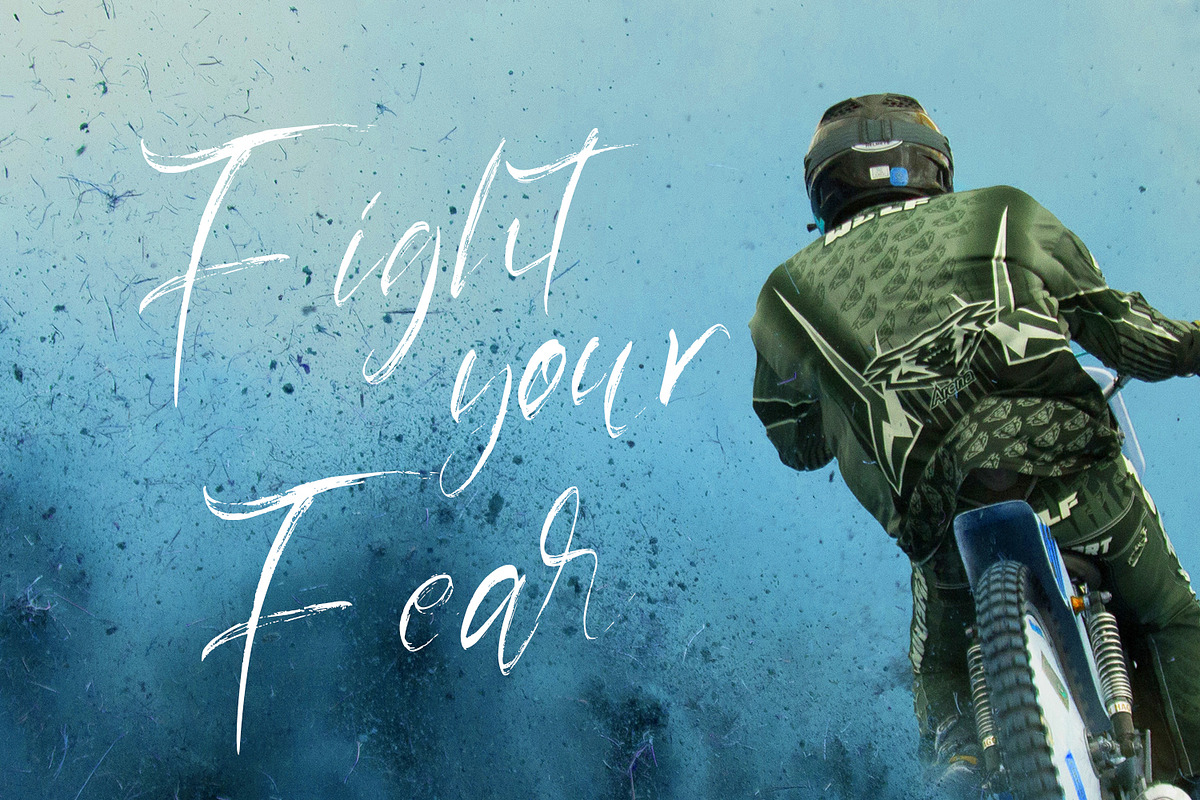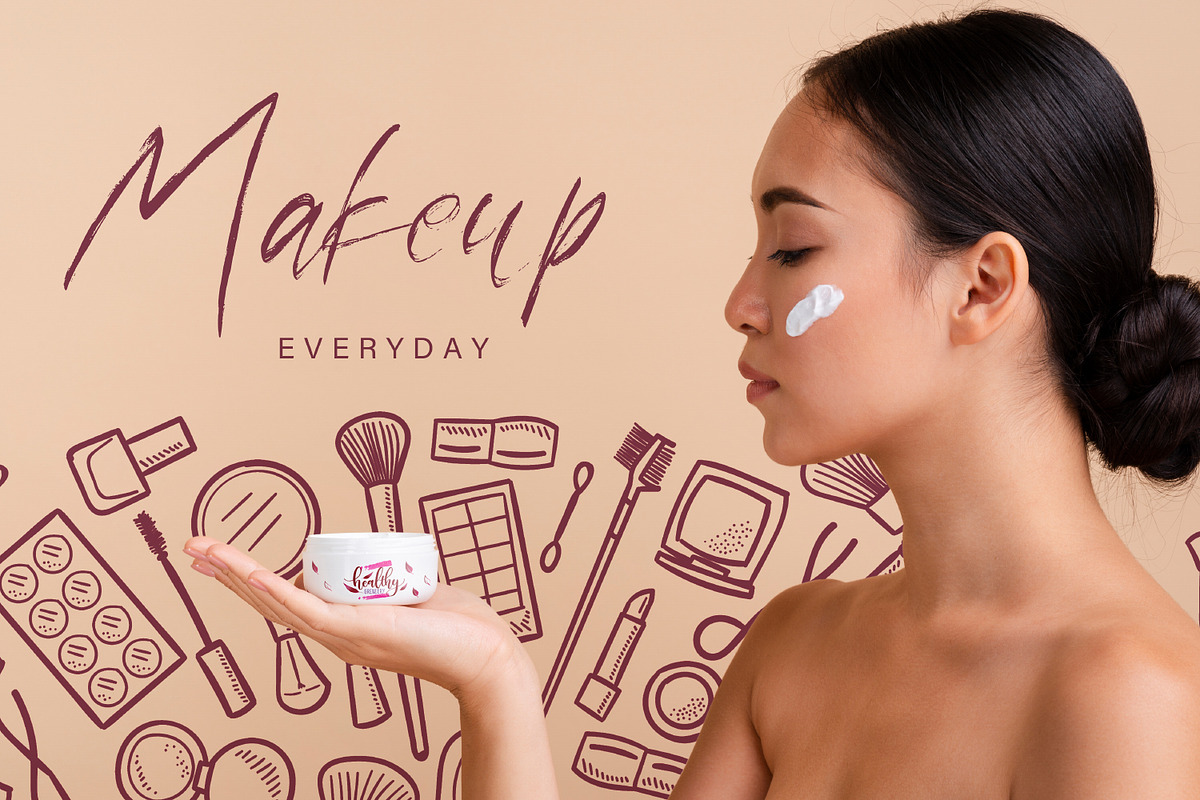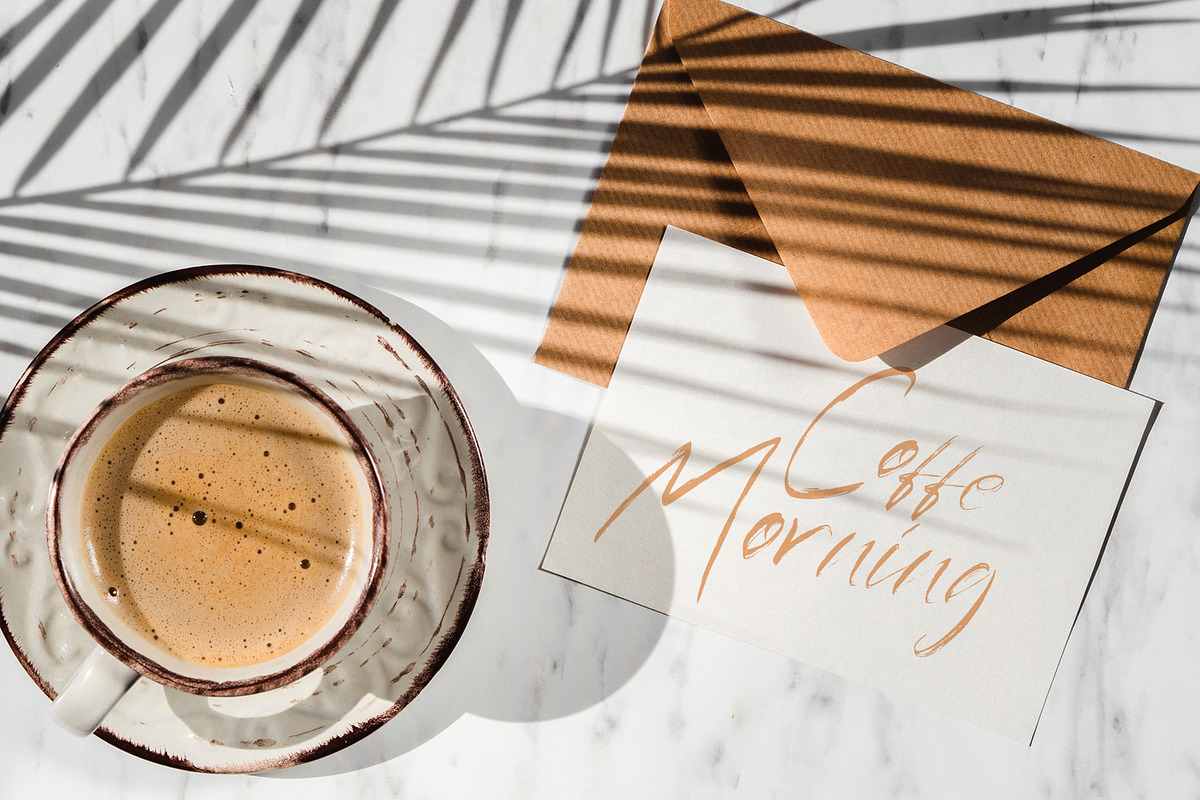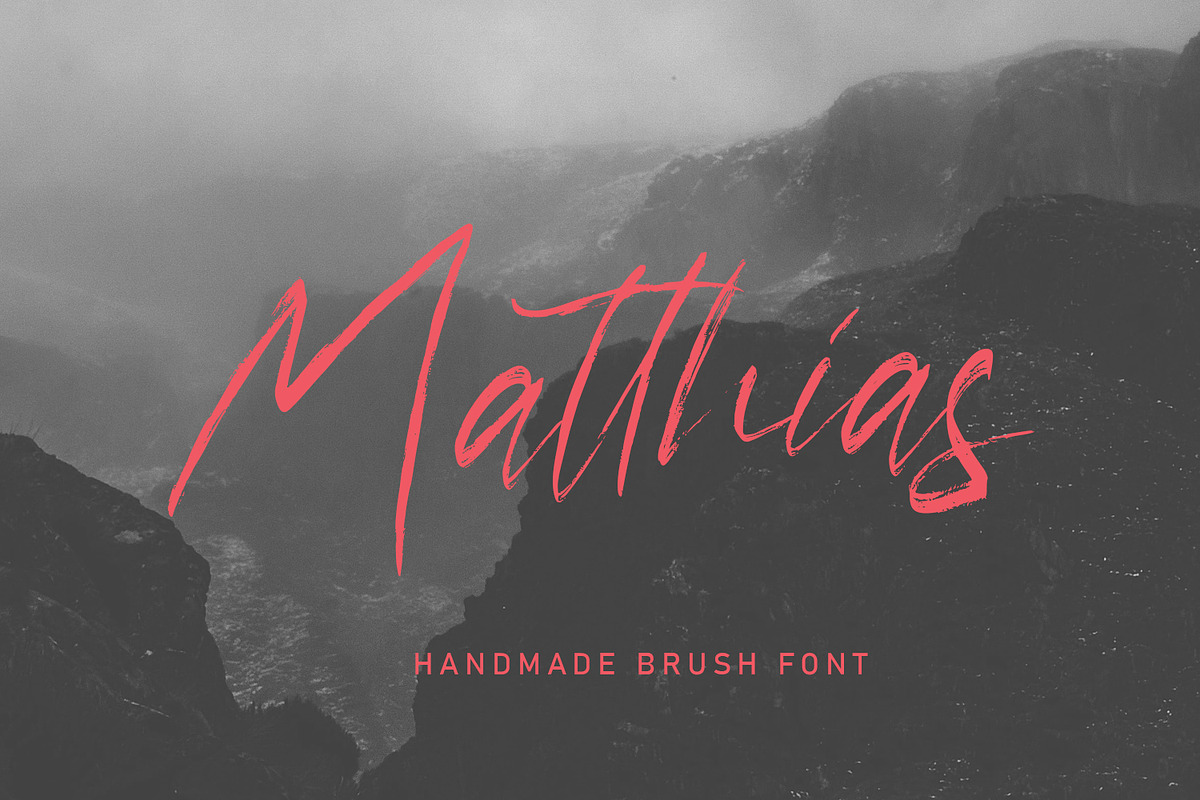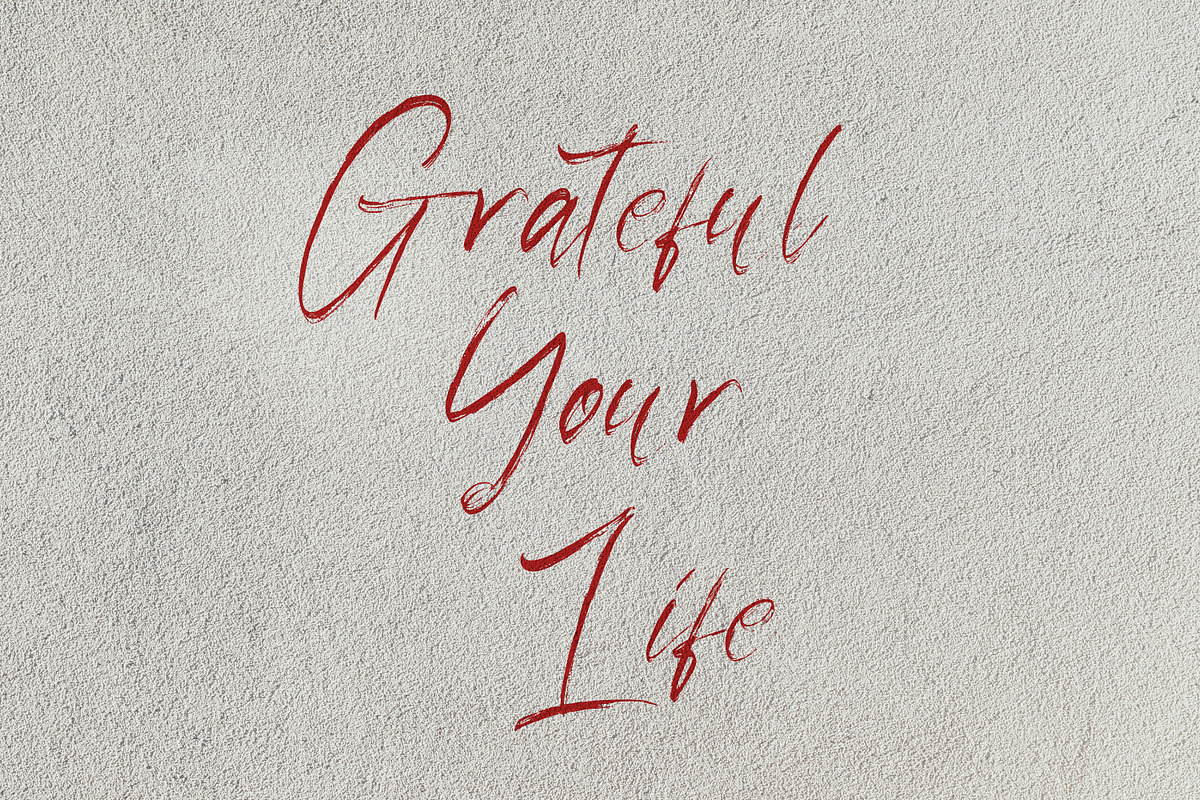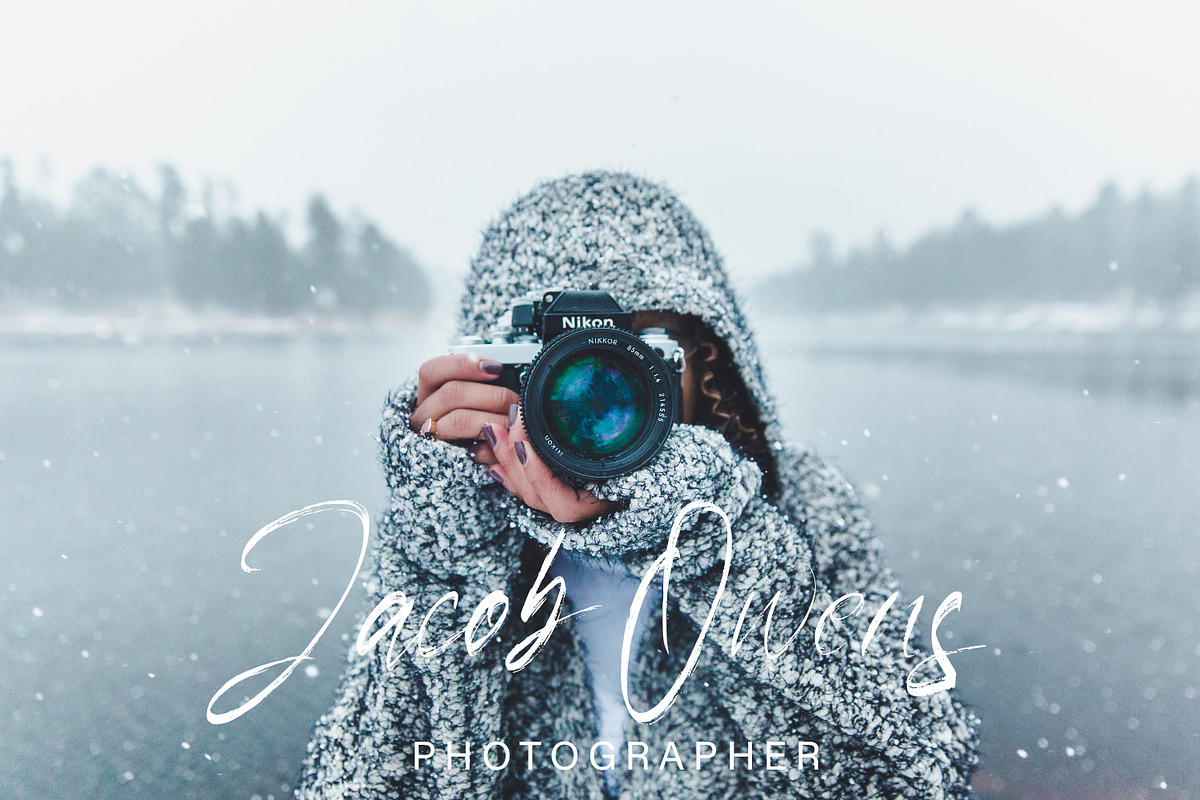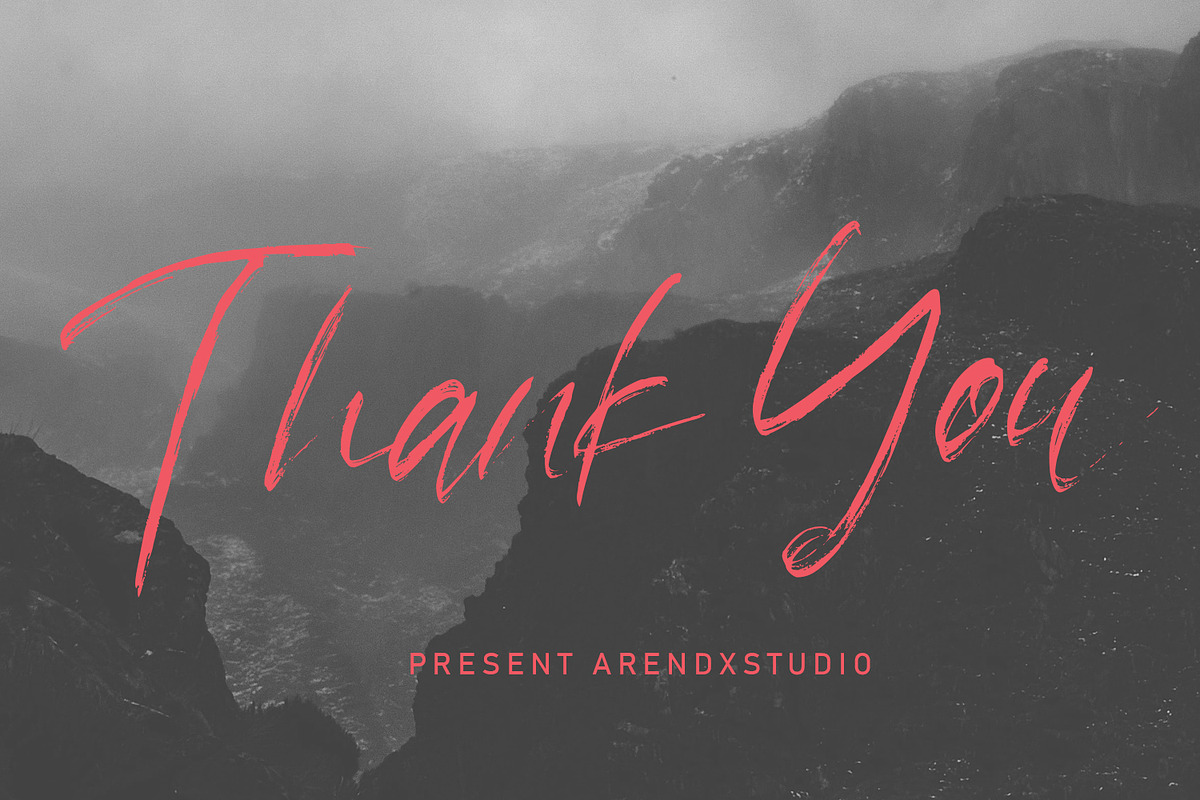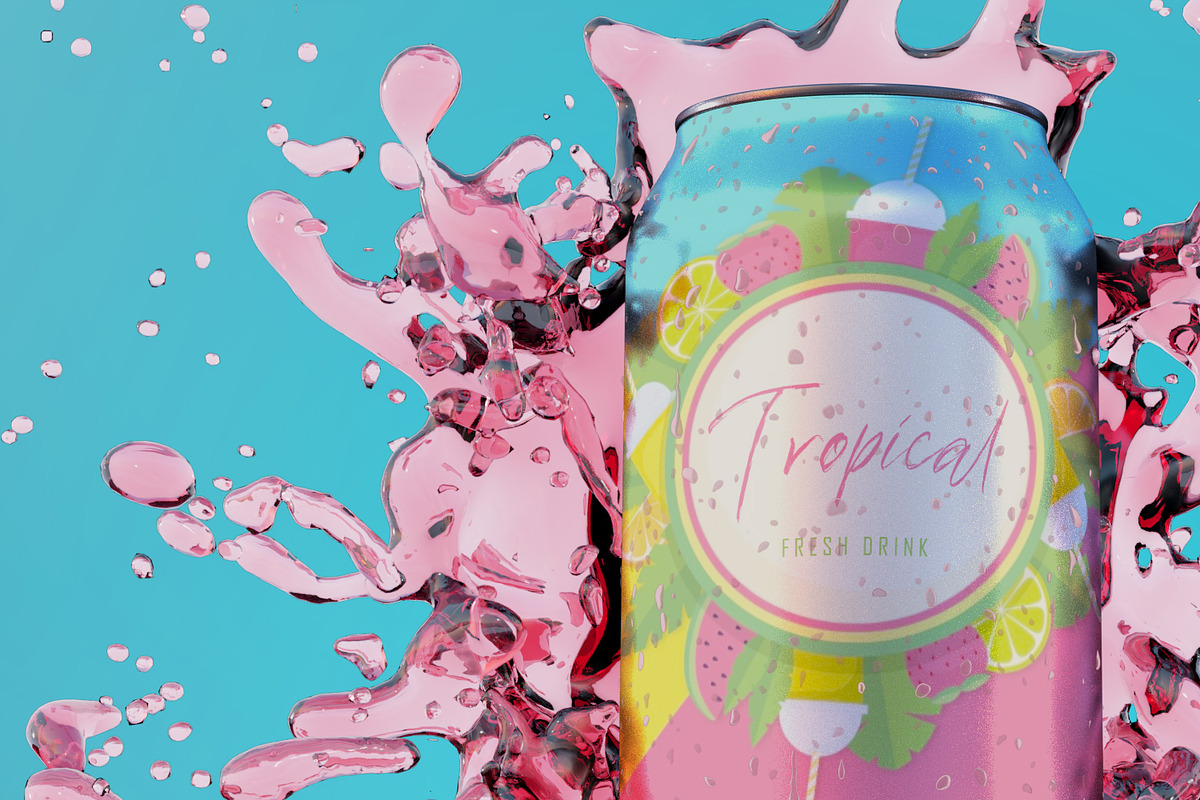
Matthias - Brush Script Font
Matthias Brush Script Font is a font with distinctive handwritten characters perfect for branding projects, logos, wedding designs, media posts, advertisements, product packaging, product designs, labels, photography, watermarks, invitations, stationery, and any project who need handwritten dishes.
Matthias - Brush Script Font by Arendxstudio fits naturally into Branding, posters, packaging, typography.